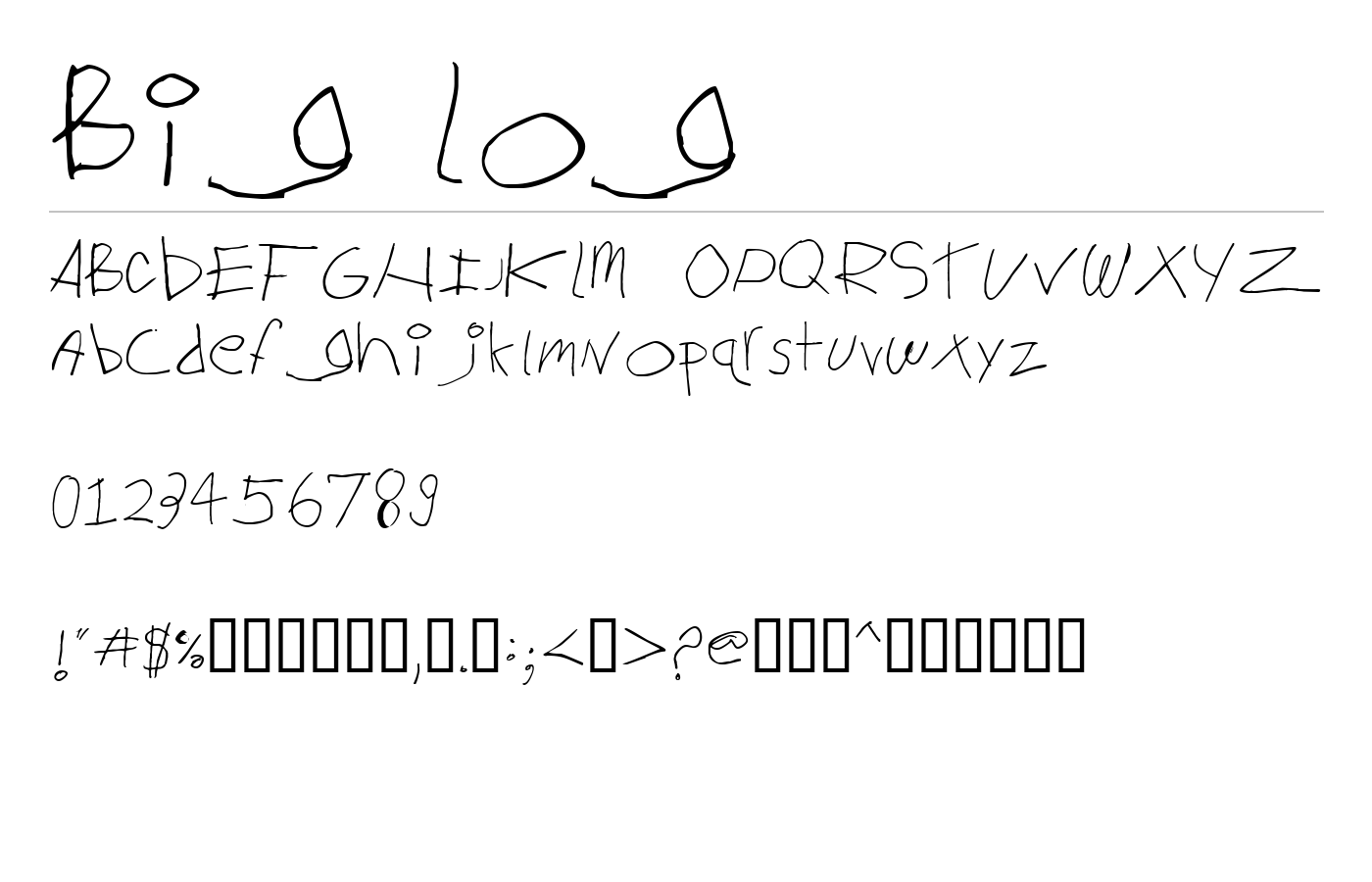
Big Log Font is a quirky, hand-drawn sans serif typeface with thin, uneven strokes that create a playful, casual feel. Its tall, narrow letterforms and irregular lines give it a whimsical personality, making it ideal for creative projects, informal branding, and fun, eye-catching headlines where a personal touch is desired. This font works best in contexts that benefit from a friendly, approachable vibe rather than formal or highly polished design.
Big Log Font